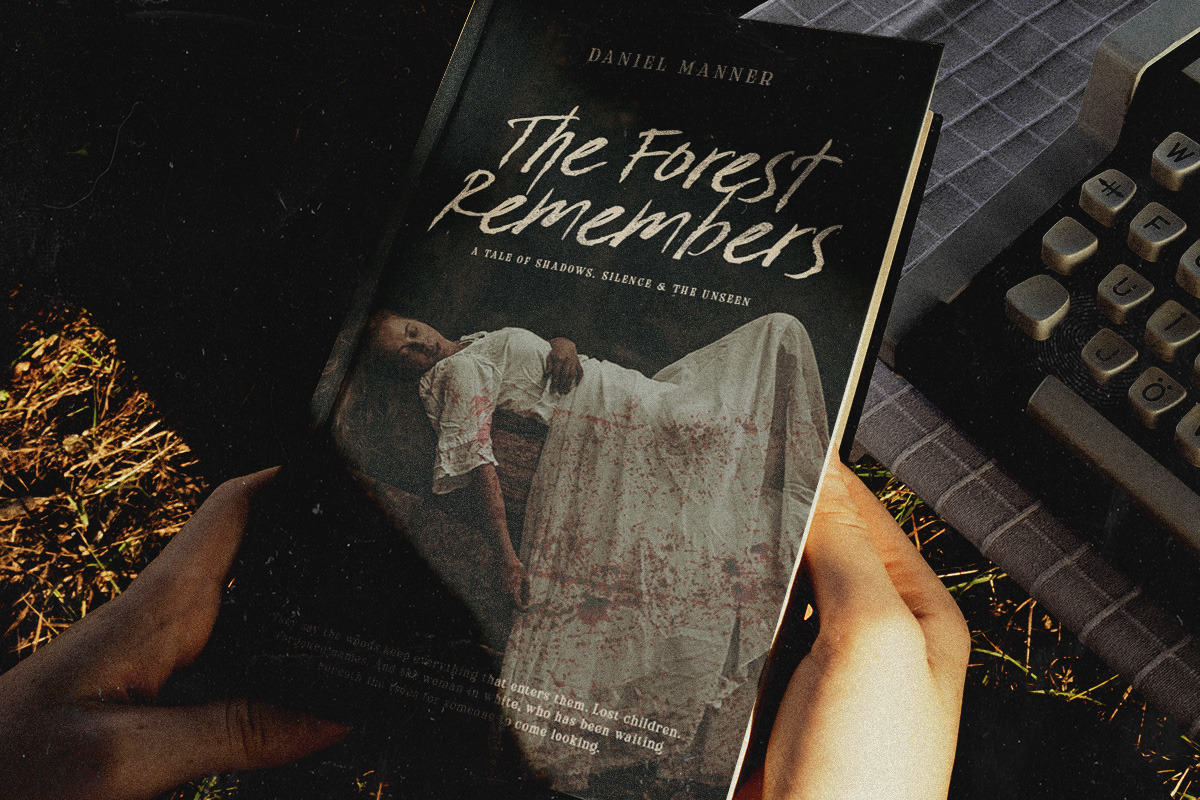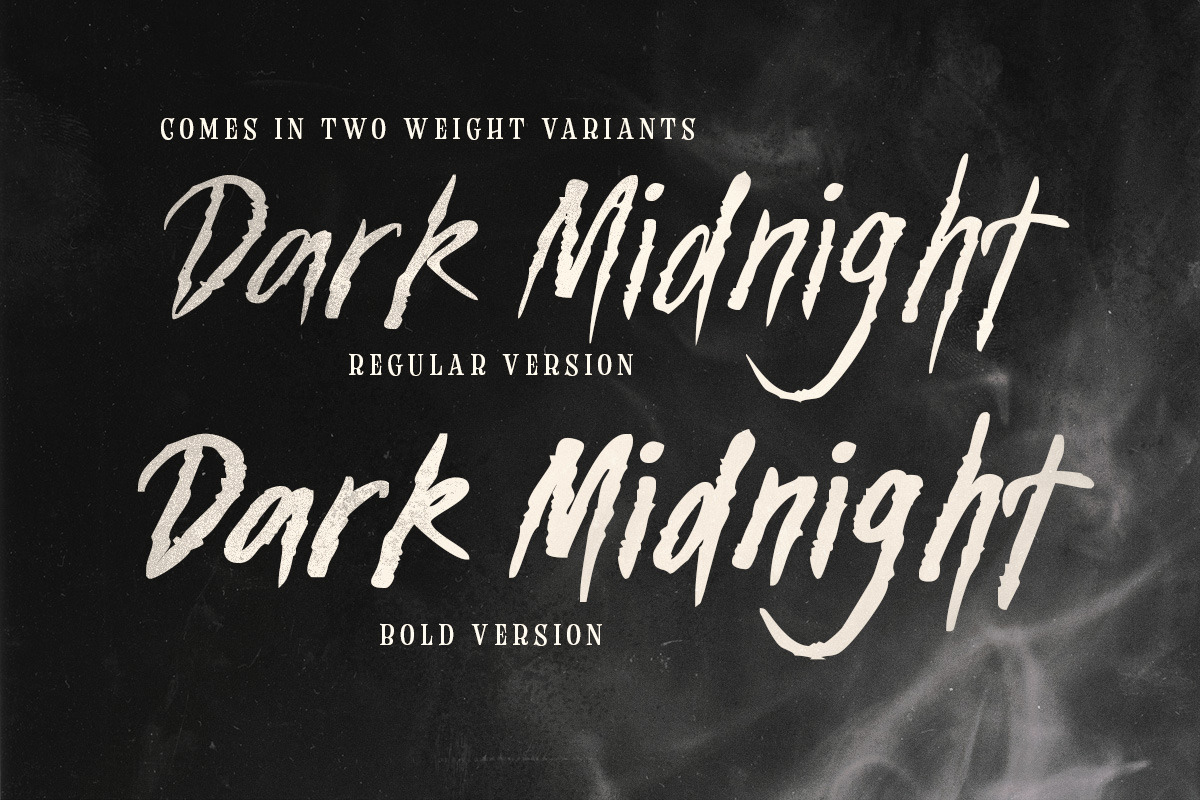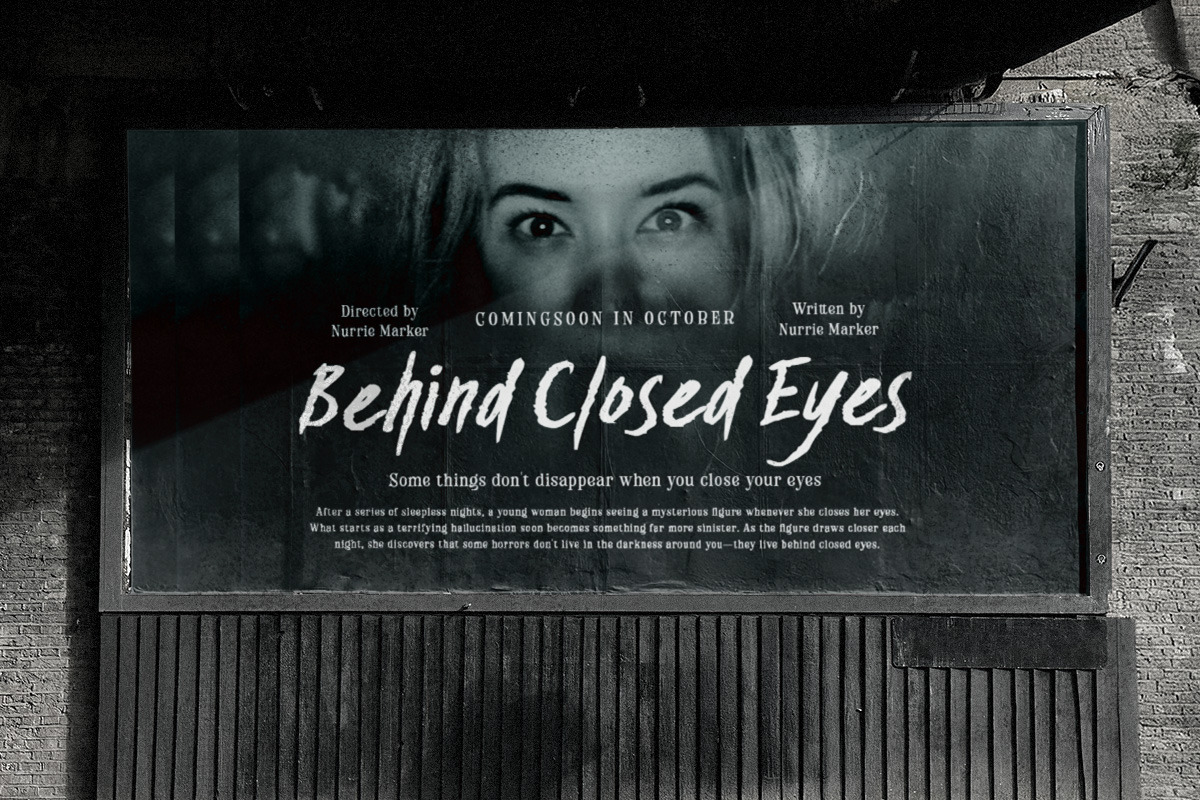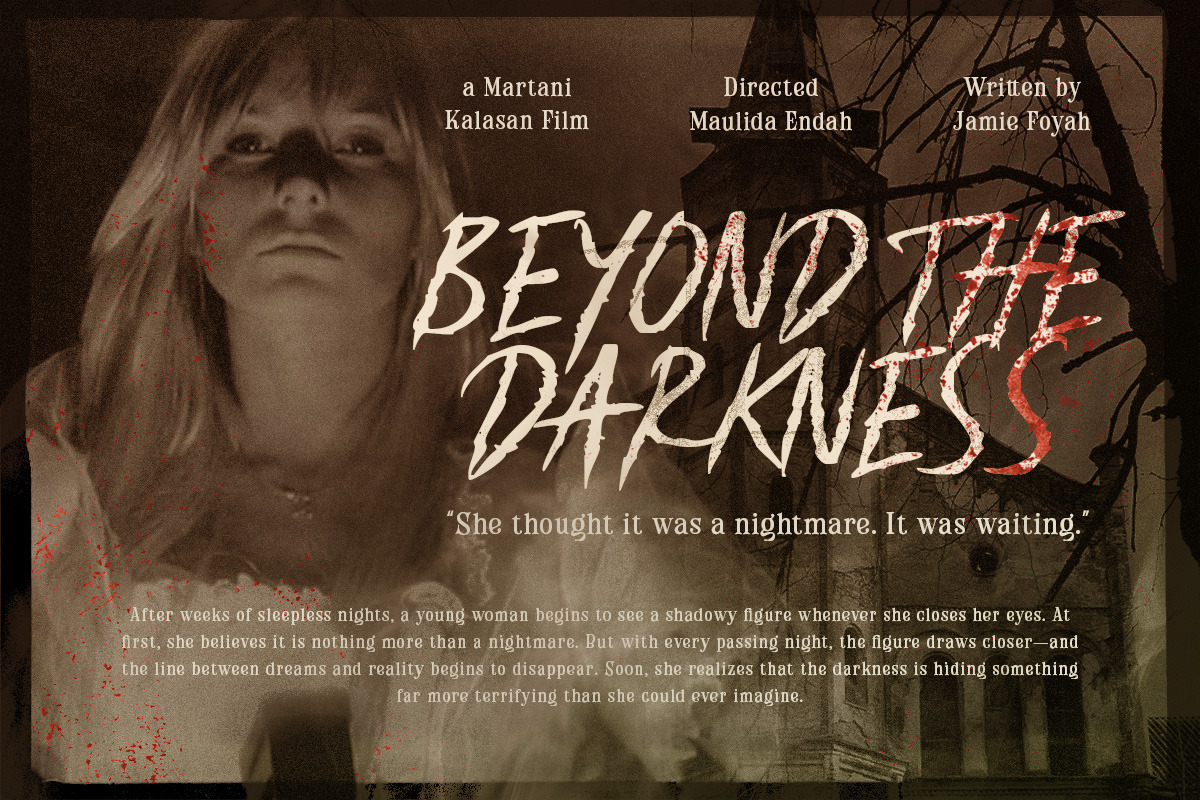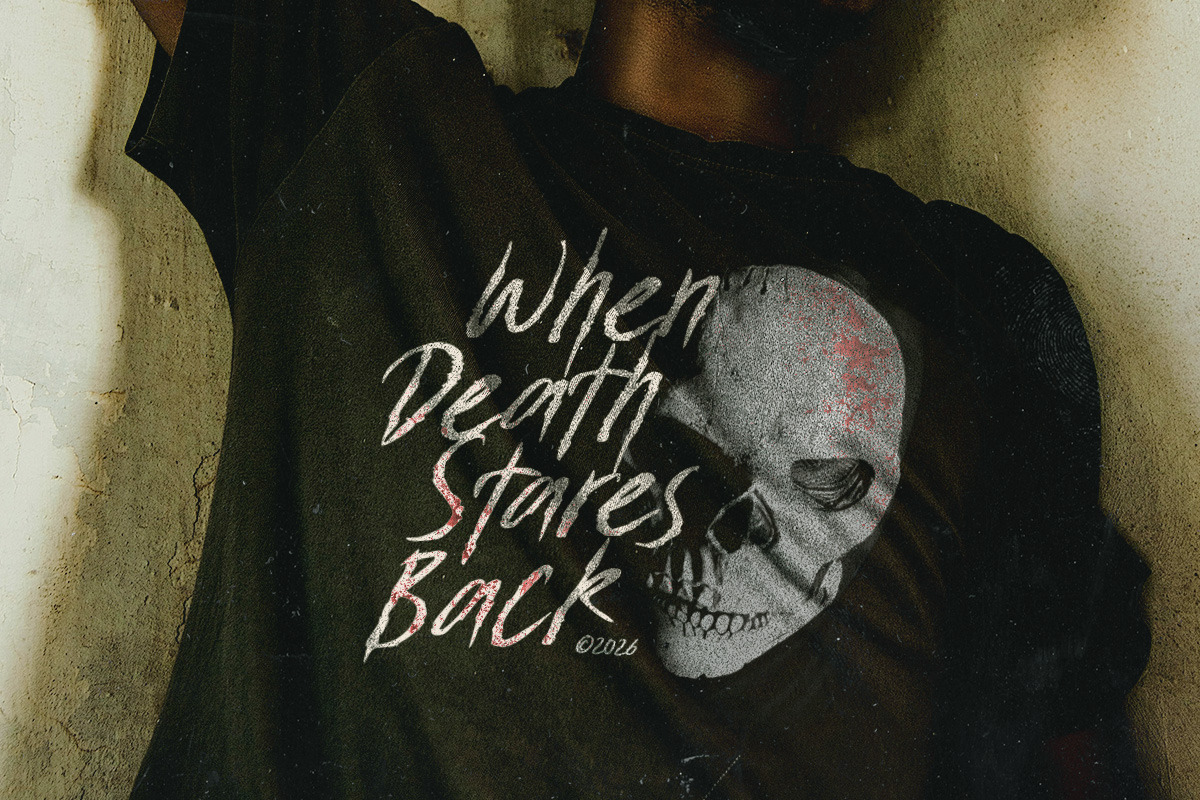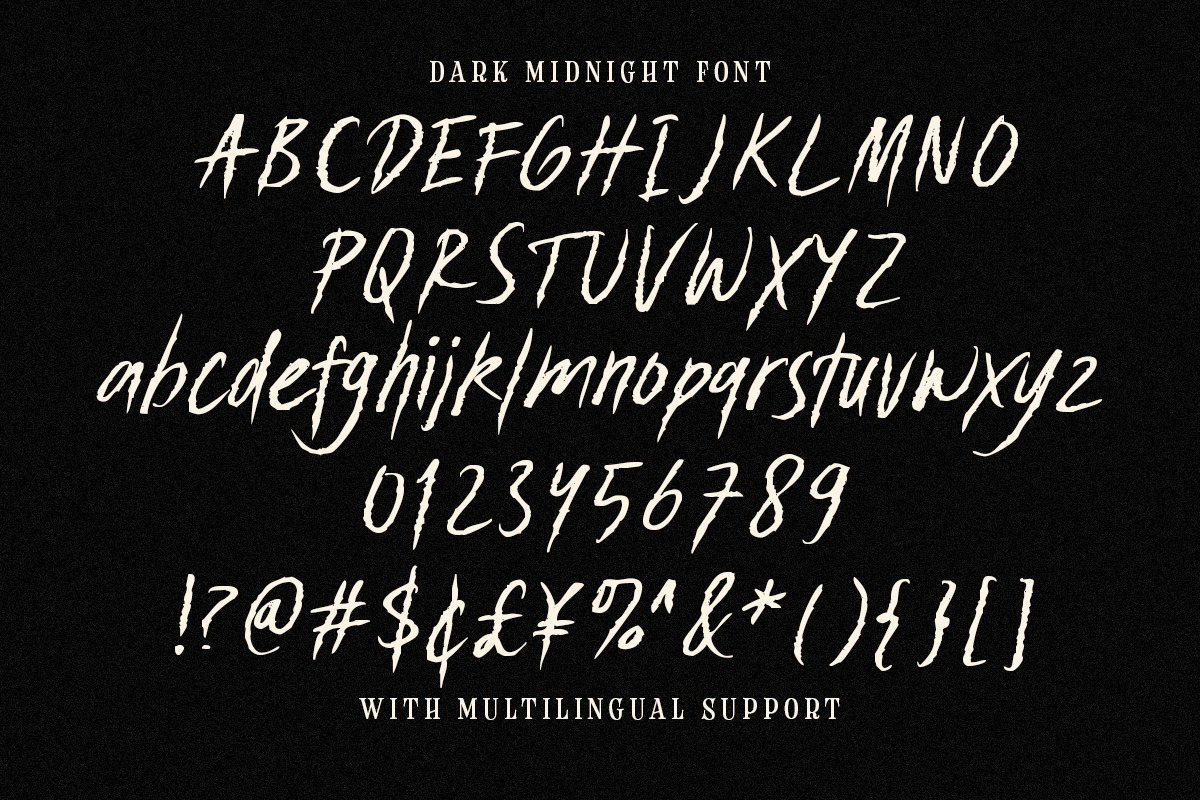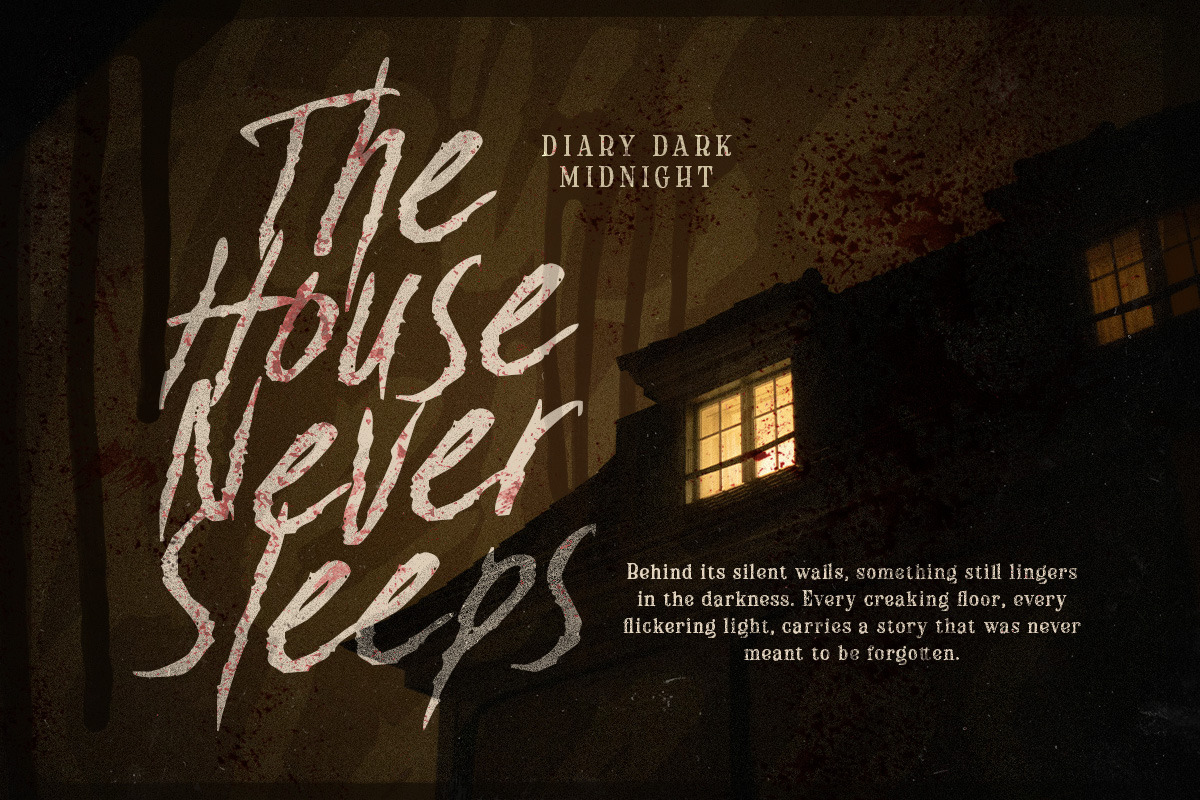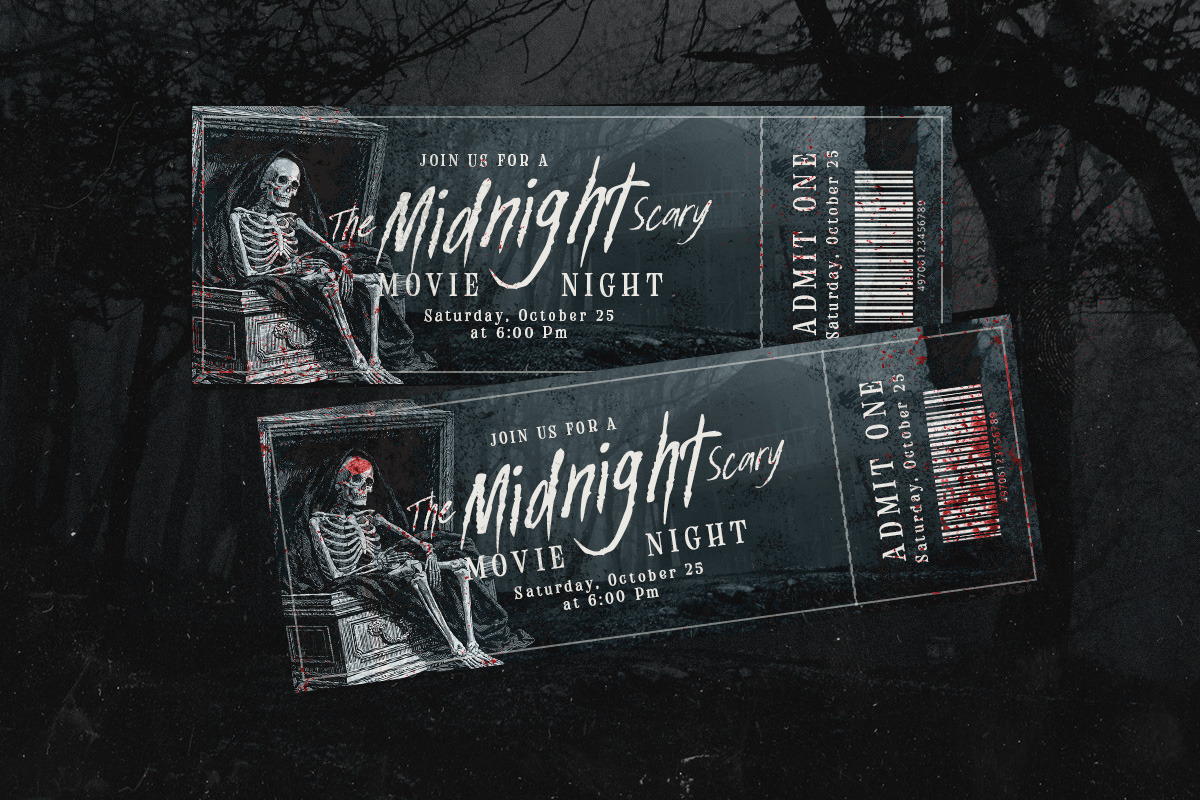
Dark Midnight – Horror Raw Brush
Dark Midnight drips with tension, turning rough brush strokes into lettering that feels frantic, haunted, and impossible to ignore. Its sharp edges, uneven rhythm, and slashed forms give every word a restless energy, as if it were scrawled in the middle of a bad dream.